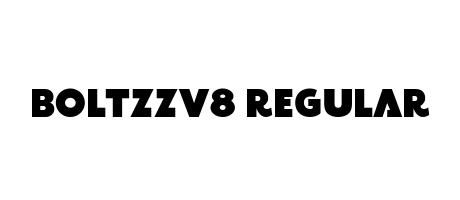
BOLTZZv8 Regular
By Noah Marcuse
BOLTZZV8 Regular: A bold, futuristic typeface with a touch of retro flair. Its chunky, geometric letters exude power and energy, ideal for headlines, logos, and branding that demands attention. The slightly uneven letterforms add a unique, handcrafted feel to its otherwise stark design. Think gritty sci-fi meets vintage arcade game.